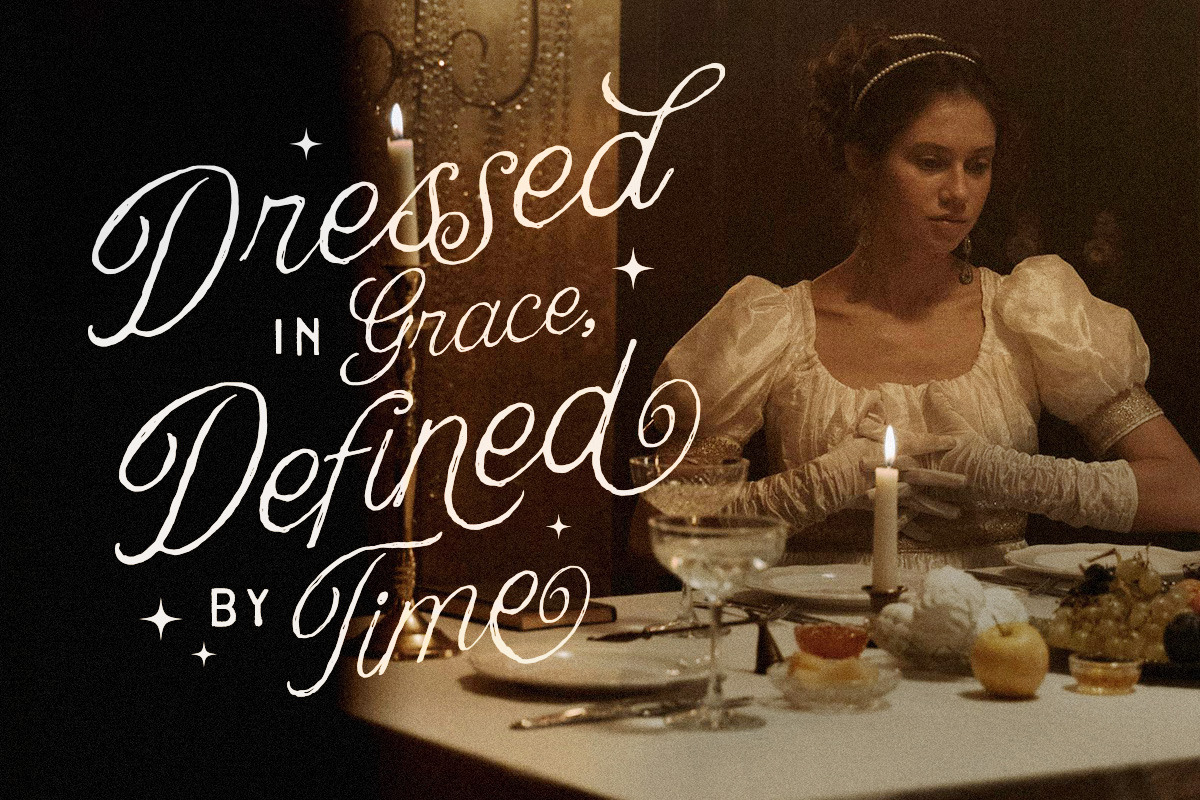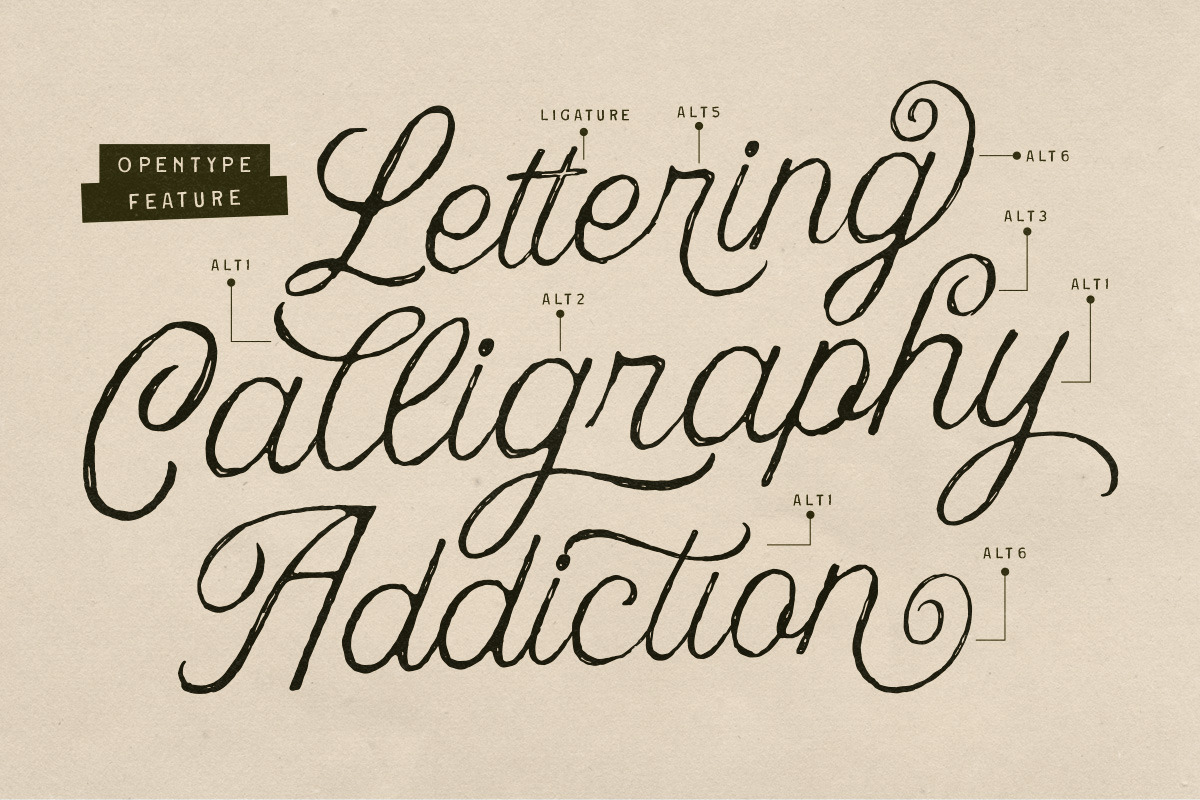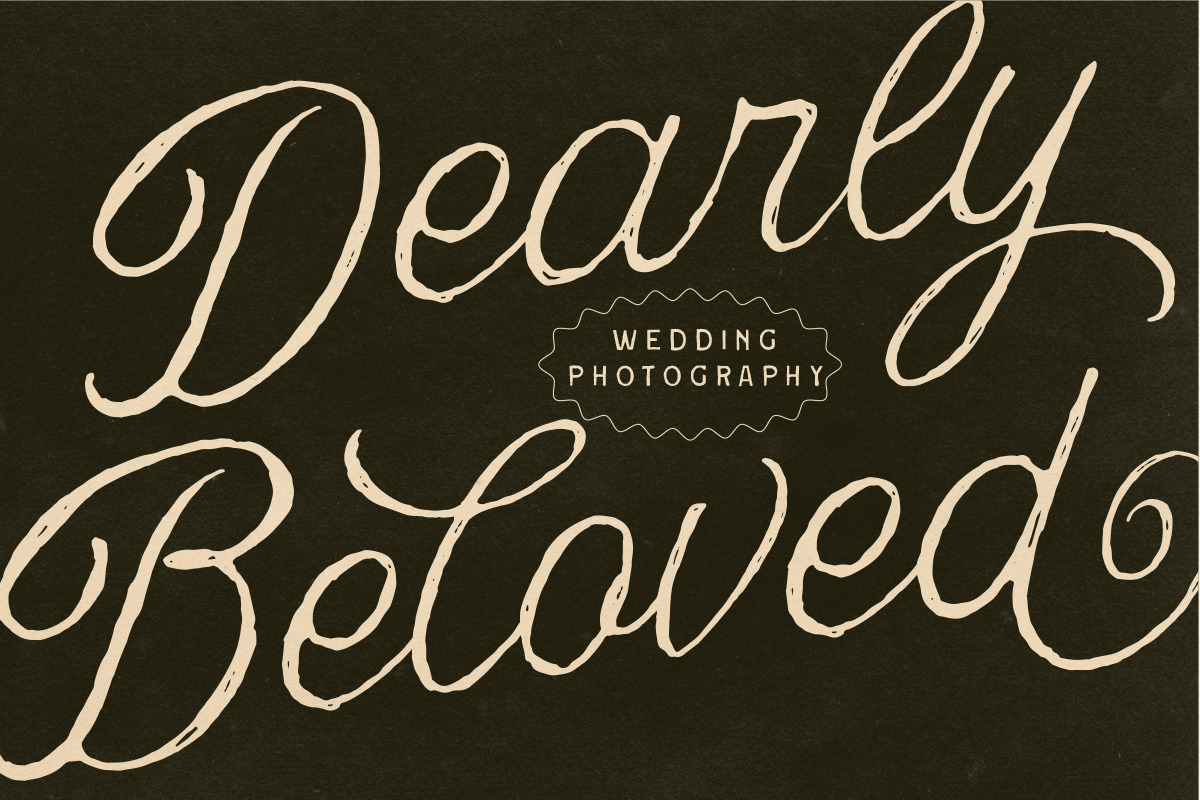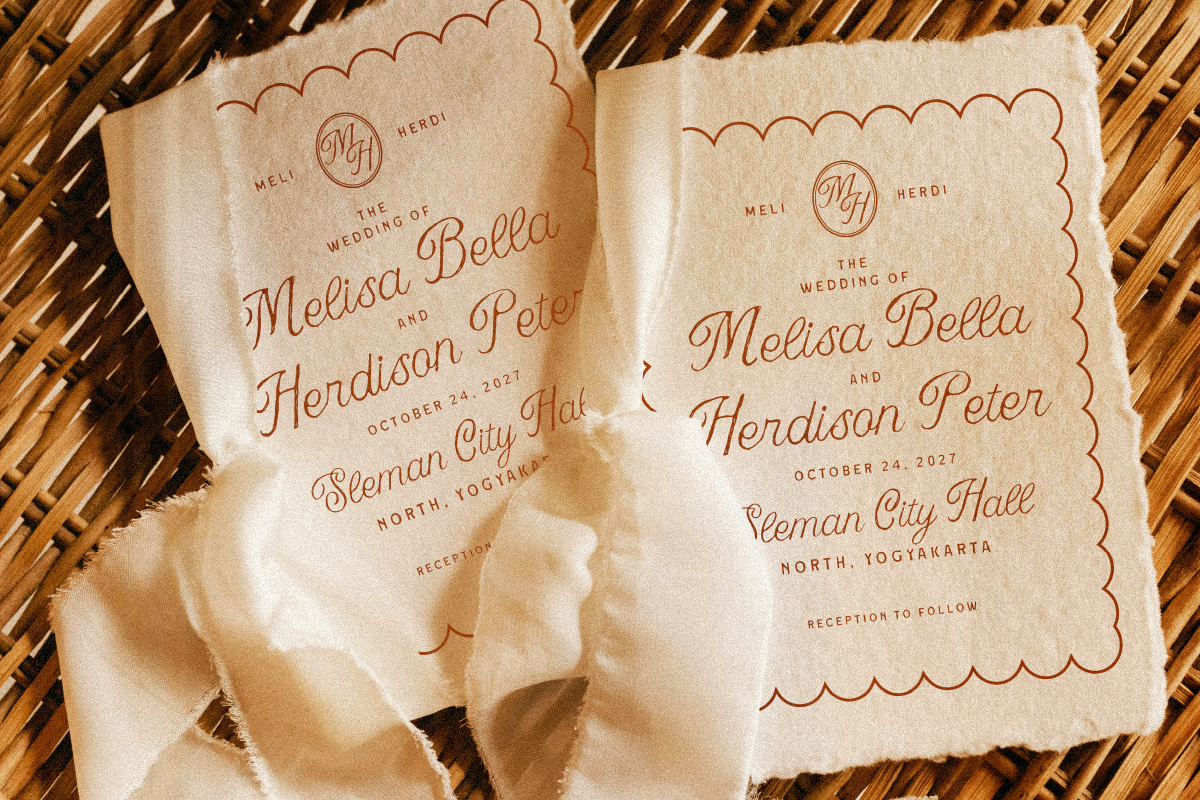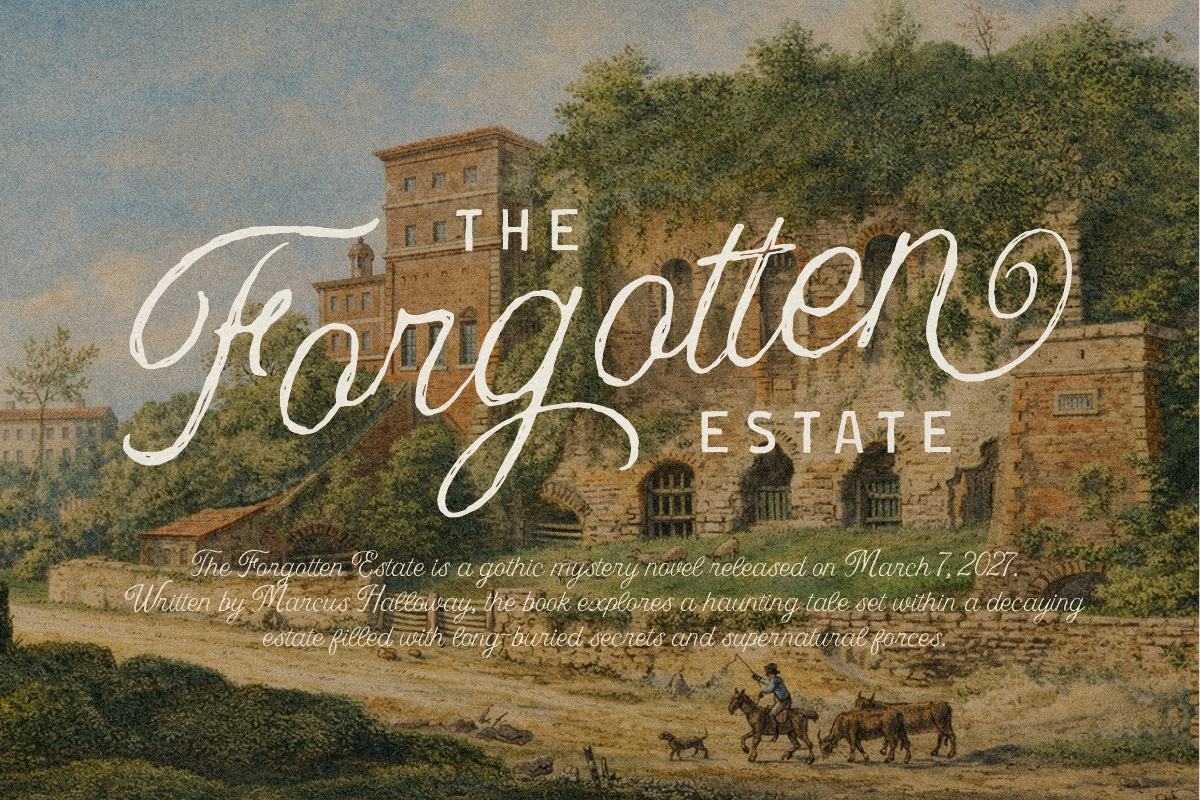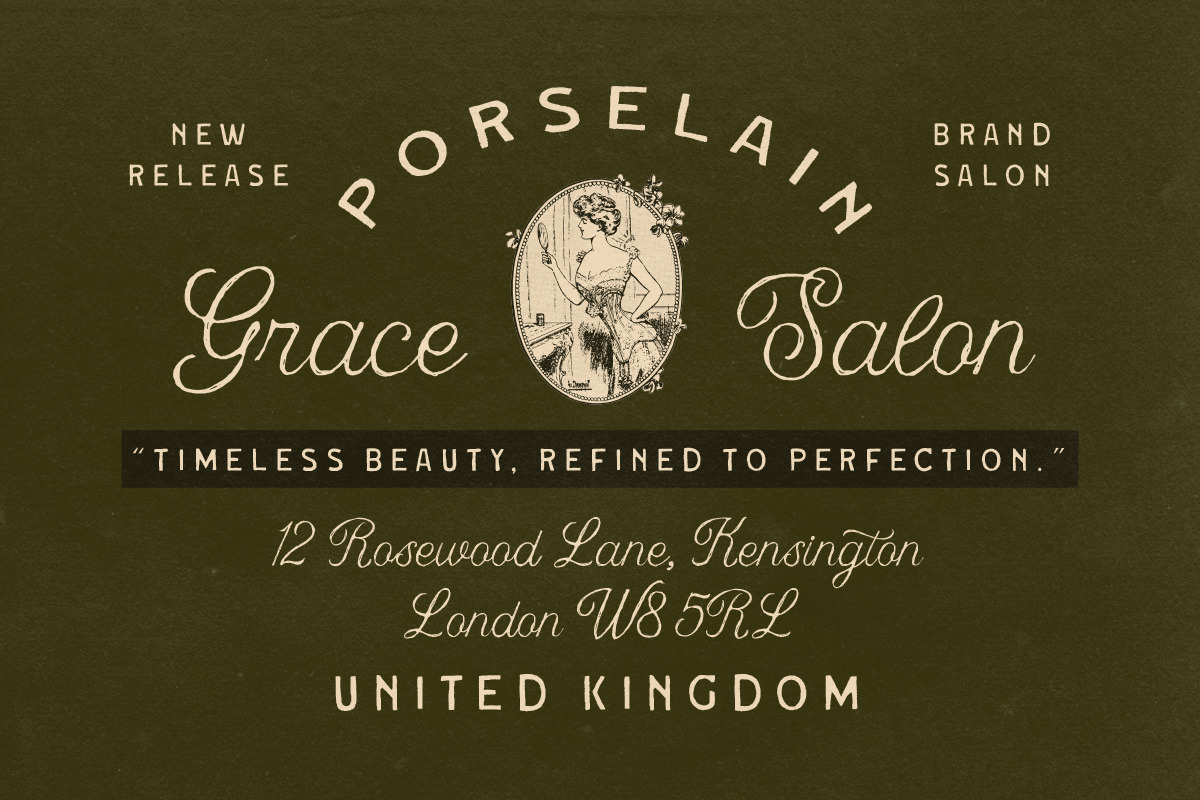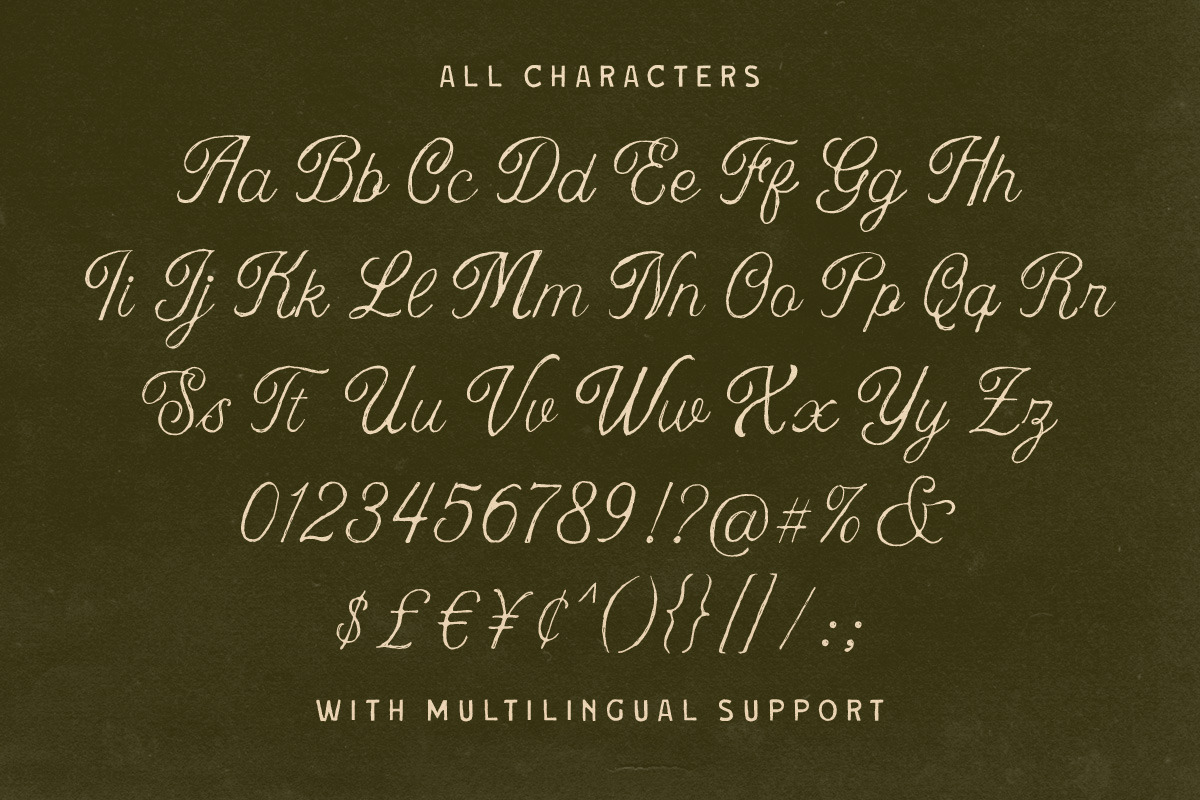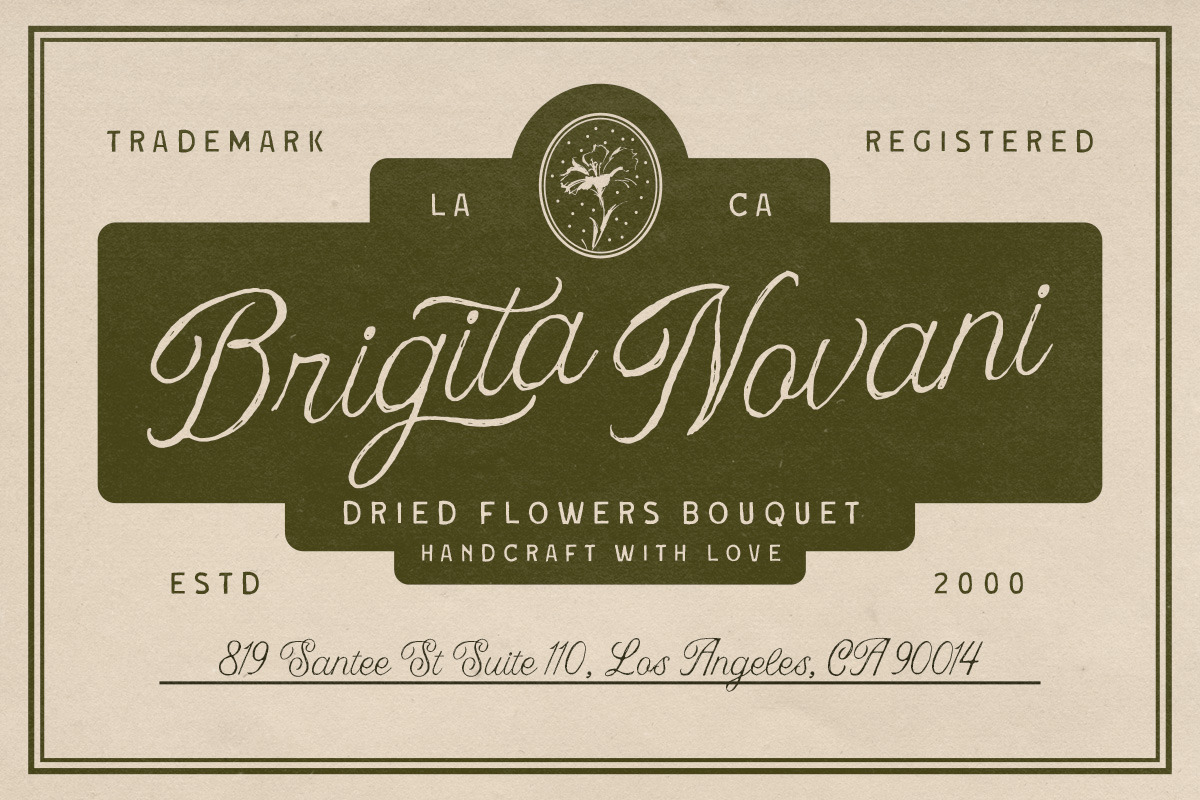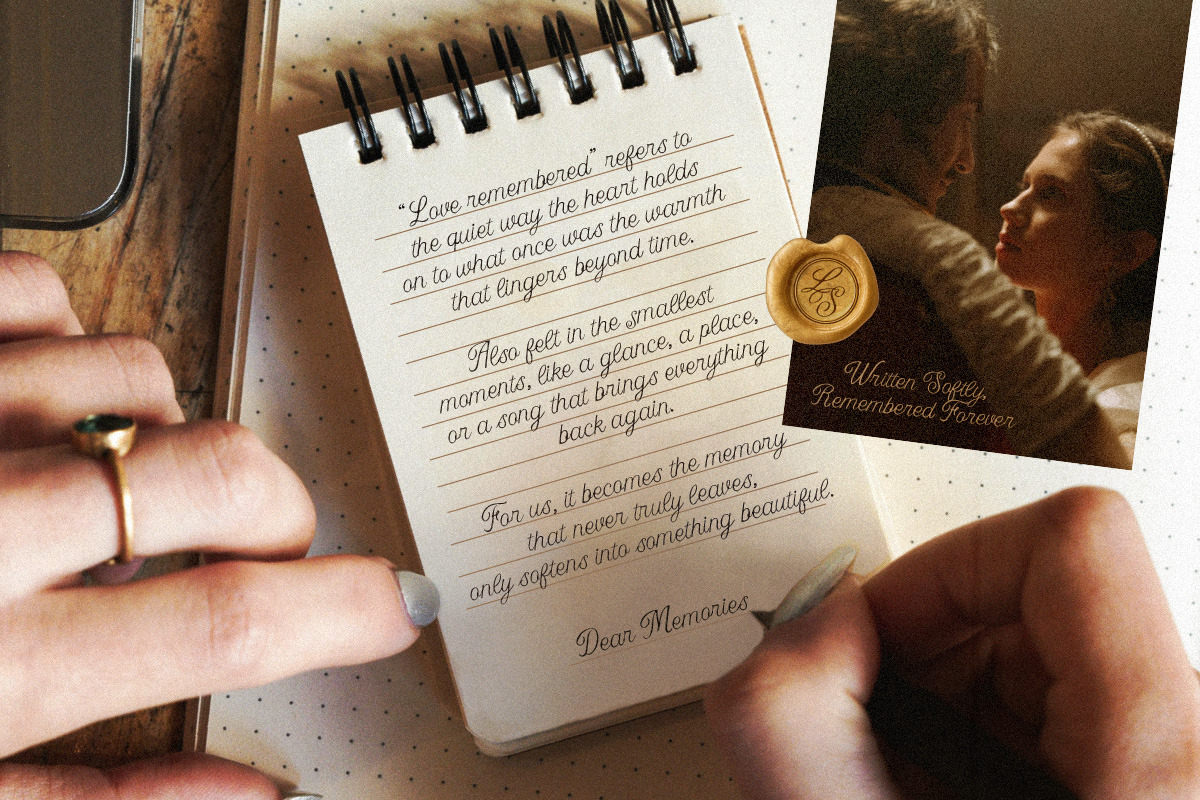
Nuances Affection Handwritten Script
Nuances Affection brings an old romantic charm with flowing handwritten strokes and graceful swashes that feel soft, elegant, and a little nostalgic. Inspired by vintage love letters and classic dinner invitations, this script font carries a timeless handmade touch that looks beautifully refined without feeling too formal.
Uppercase & lowercase
Numbers and punctuation
Alternates & Ligatures